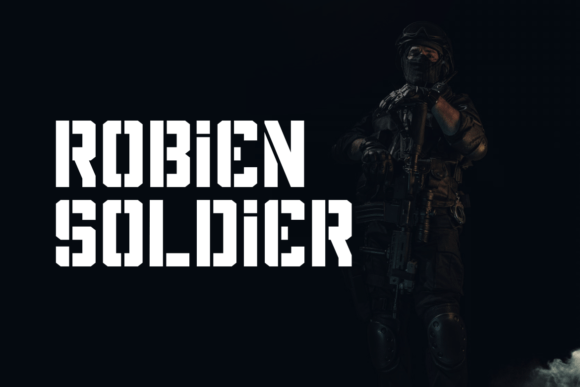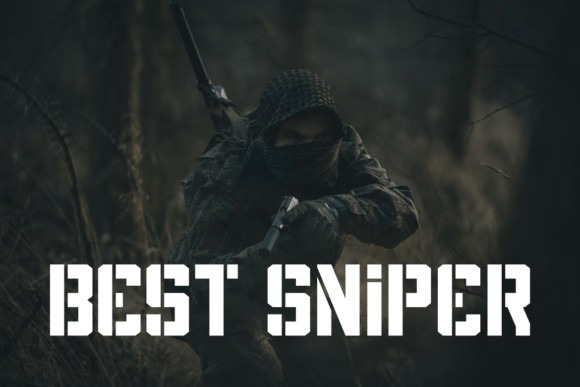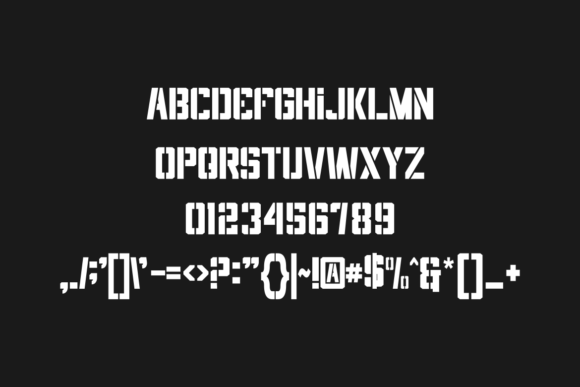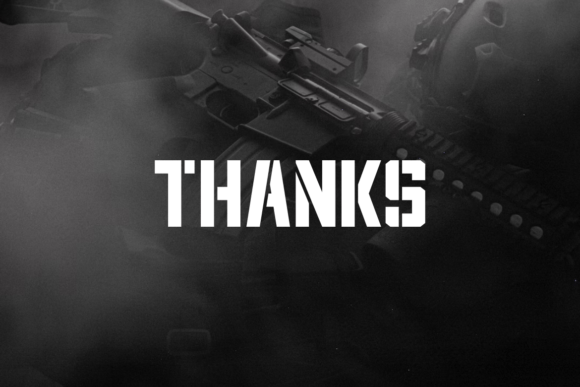
Candelen Font: The Ultimate Choice for Bold and Modern Designs
Are you a designer or crafter looking for a font that can add a touch of modernity and boldness to your projects? Look no further than the Candelen font. This stunning stencil font is designed to make a statement, with its clean, strong lines and simple, modern look. In this article, we’ll take a closer look at the Candelen font, its features, and how you can use it to elevate your designs.
What is Candelen Font?
Candelen is a bold, easy-to-read stencil font that is perfect for headlines and display text. Its clean and strong lines make it highly legible, even at small sizes. The font has a simple, modern look that is sure to grab attention and add a touch of sophistication to your designs. Whether you’re working on a logo, poster, or packaging design, Candelen is an excellent choice.
Key Features of Candelen Font
- Bold and Easy-to-Read: Candelen font is designed to be highly legible, making it perfect for headlines and display text.
- Clean and Strong Lines: The font features clean and strong lines that give it a modern and sleek look.
- Simple and Modern: Candelen has a simple, modern design that is sure to add a touch of sophistication to your designs.
- Stencil Font: The font is a stencil font, which means it has a unique and distinctive look that is perfect for designs that require a bold statement.
How to Use Candelen Font in Your Designs
Candelen font is versatile and can be used in a variety of design projects, including:
- Logos: Use Candelen font to create a bold and modern logo that will help your brand stand out.
- Posters: Add a touch of sophistication to your posters with Candelen font, perfect for announcing events, promotions, or new products.
- Packaging Design: Use Candelen font to add a modern and bold touch to your packaging design, making your products stand out on store shelves.
- Signage: Candelen font is perfect for signage, including billboards, banners, and directional signs.
Benefits of Using Candelen Font
There are many benefits to using Candelen font in your designs, including:
- Improved Legibility: Candelen font is highly legible, even at small sizes, making it perfect for designs that require a clear and concise message.
- Enhanced Visual Appeal: The font’s clean and strong lines, combined with its simple and modern design, make it a visually appealing choice for designers.
- Versatility: Candelen font can be used in a variety of design projects, from logos to signage, making it a versatile and valuable addition to your font library.
Tips for Using Candelen Font Effectively
Here are some tips for using Candelen font effectively in your designs:
- Use it Boldly: Candelen font is designed to be bold and attention-grabbing, so don’t be afraid to use it in large sizes.
- Pair it with Other Fonts: Candelen font pairs well with other fonts, including sans-serif and serif fonts, making it a great choice for designs that require a combination of fonts.
- Experiment with Colors: Candelen font looks great in a variety of colors, so experiment with different colors to find the one that works best for your design.
Candelen font is a bold, easy-to-read stencil font that is perfect for designers and crafters looking to add a touch of modernity and boldness to their projects. With its clean, strong lines and simple, modern design, Candelen is an excellent choice for headlines and display text. Whether you’re working on a logo, poster, or packaging design, Candelen font is sure to make a statement.